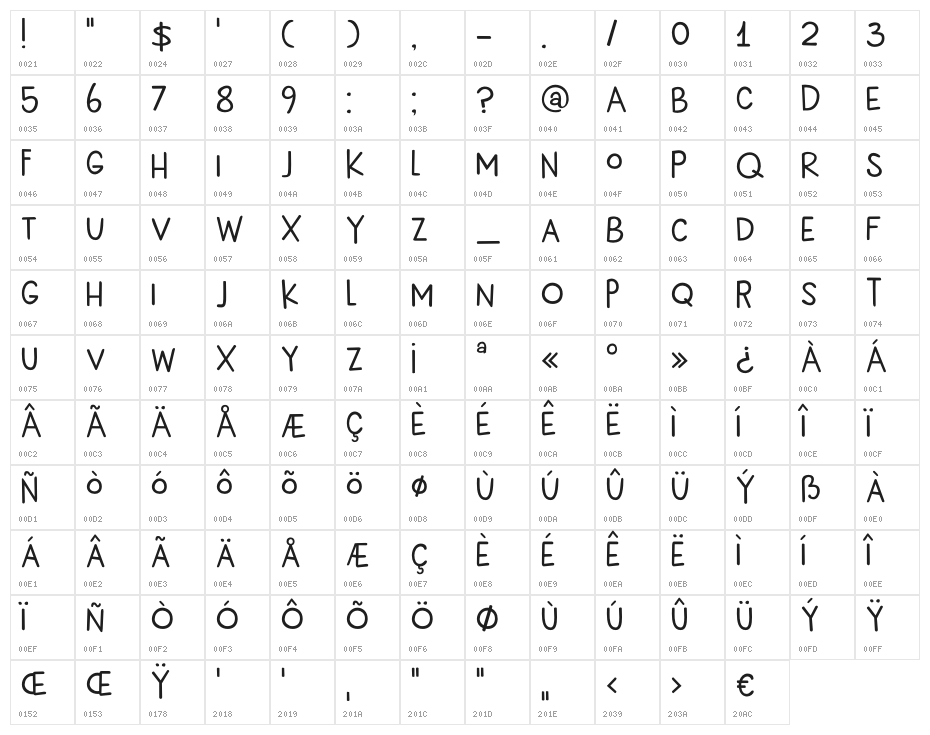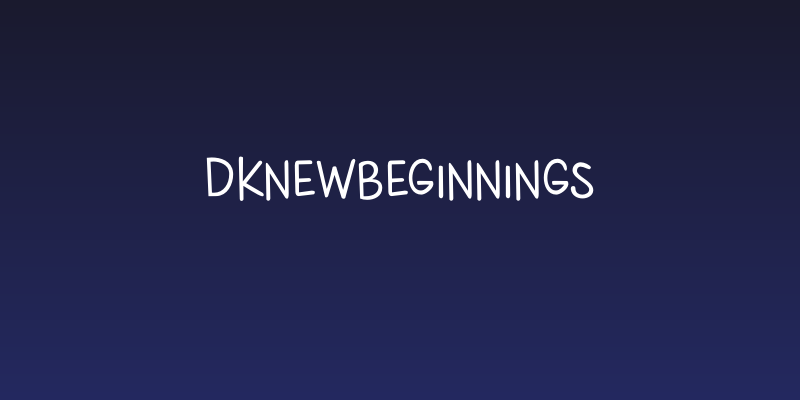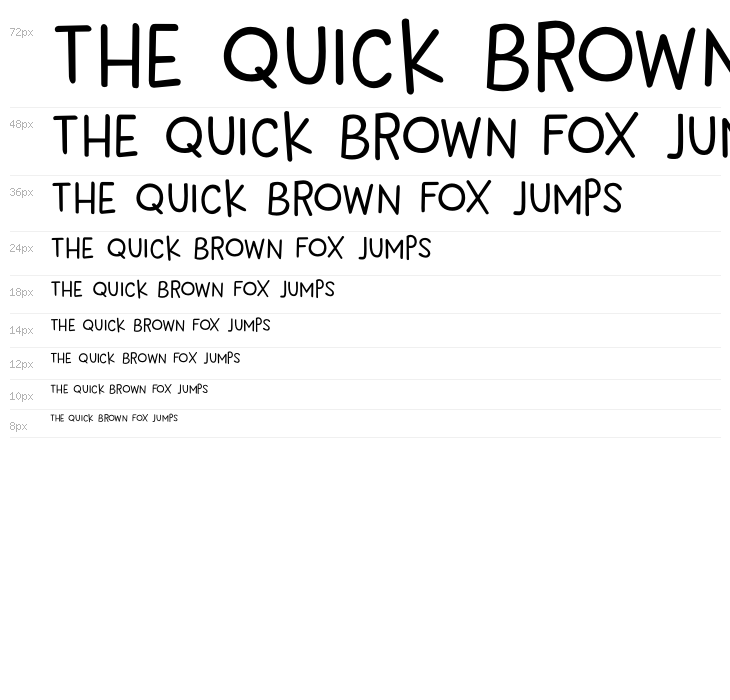
DKNewBeginnings Font
DKNewBeginnings Description
This playful and whimsical font features a handwritten style with a casual and friendly appearance. The characters are slightly uneven, adding a touch of charm and personality. The strokes are consistent in width, giving it a clean and approachable look. The uppercase and lowercase letters maintain a uniform height, while the numbers and special characters are designed to complement the overall style. This font is perfect for projects that require a personal touch or a fun, informal vibe.
Overall StylePlayful
Use CaseLogos, Invitations, Greeting Cards
Proposed ProjectsIdeal for greeting cards, children's books, playful branding, and informal invitations.